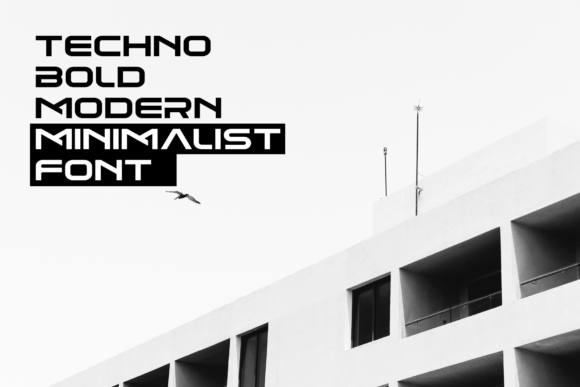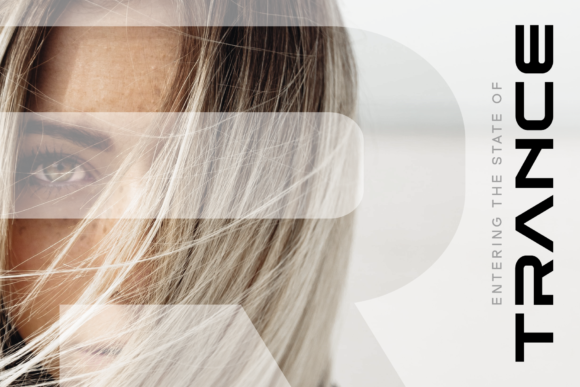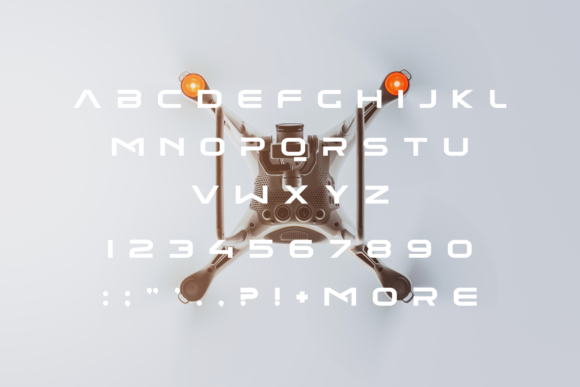
The Future of Typography: Introducing Carbon Font
As designers, we’ve all been there – staring at a blank screen, trying to bring a concept to life. The cursor blinks, our minds go blank, and suddenly, the perfect font appears. For many of us, this moment is a spark that sets the creative process ablaze. And what if I told you that this spark can be reignited with a single font – one that embodies the essence of modern technology and redefines the way we communicate visually?
Enter the Carbon Font, a bold and sleek aesthetic that’s set to revolutionize the world of typography. This cutting-edge font is not just a tool for designers; it’s a statement piece that elevates the entire design process. With its futuristic vibe and versatility, Carbon Font is the perfect companion for creatives looking to push the boundaries of what’s possible.
Carbon Font Key Features
- Font Size: Carbon Font is available in multiple weights, ranging from 100 to 900, allowing designers to choose the perfect level of boldness for their project.
- Unique Characteristics: Carbon Font features a unique, futuristic design aesthetic with a blend of geometric and organic shapes, making it perfect for tech, sci-fi, and futuristic-themed projects.
- Font Width: Carbon Font has a medium to wide font width, making it suitable for use in headings, titles, and other large-scale typography.
Carbon Font Review
As a designer, I’ve had the chance to work with Carbon Font, and I must say it’s been an interesting experience. Here’s what I think.
- Unique aesthetic: Carbon Font has a distinctive look that can add a touch of sophistication to any project.
- High-resolution support: It scales well, even at smaller sizes, making it perfect for UI elements and body text.
- Customizable: Carbon Font offers a range of weights and styles, allowing you to tailor the font to your specific design needs.
- Limited language support: Carbon Font doesn’t cover as many languages as some other fonts, which can be a drawback for multilingual projects.
- Some readability issues: At very small sizes, the font can become difficult to read, particularly for users with visual impairments.
Overall, Carbon Font is a solid choice for designers who want a unique, high-resolution font. While it has some limitations, it’s still a versatile and stylish option that can elevate your designs. Just be mindful of its limitations, and you’ll be fine.
The Carbon Font is a modern sans-serif typeface designed for digital interfaces. To use it in your design projects, follow these steps:
Use the Carbon Font for digital interfaces, such as websites, apps, and digital products. Pair it with bold typography for headings and use it for body text for a clean and modern look.
The Carbon Font is ideal for:
- Modern website design
- Digital product design
- App design
- Business card design
Alternatives to Carbon Font
Inter is a highly legible sans-serif font designed for digital use. It is designed to work well in a wide range of contexts, from body text to headings. Inter is a great alternative to Carbon Font for designs that require a clean and modern aesthetic.
Inter is more condensed than Carbon Font, making it suitable for designs with limited horizontal space. However, Inter lacks the subtle rounded edges and terminal endings found in Carbon Font, which may make it less suitable for designs that require a more humanistic feel.
Arial
Arial is a classic sans-serif font that has been widely used in digital design for decades. It is a great alternative to Carbon Font for designs that require a neutral and unobtrusive aesthetic.
Arial is more traditional and less modern than Carbon Font, making it less suitable for cutting-edge designs. However, Arial is highly legible and works well in a wide range of contexts, making it a great choice for designs that require a timeless feel.